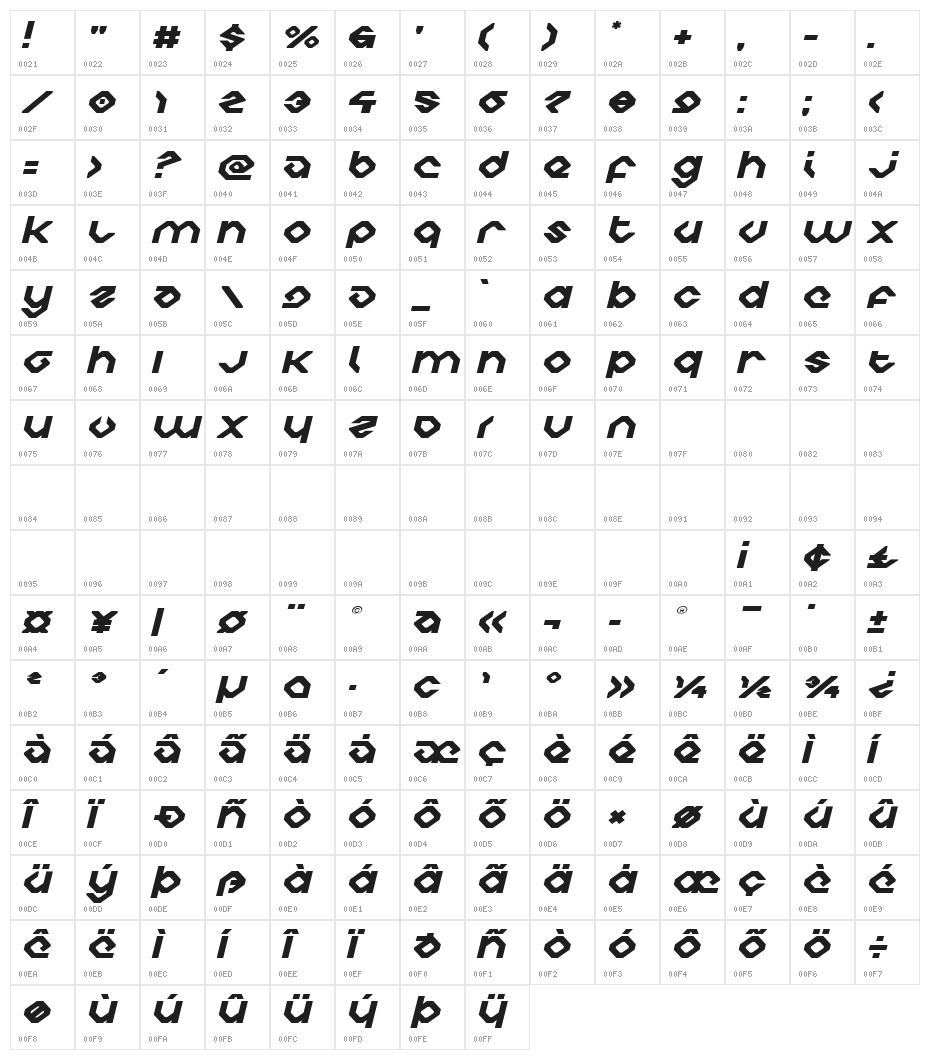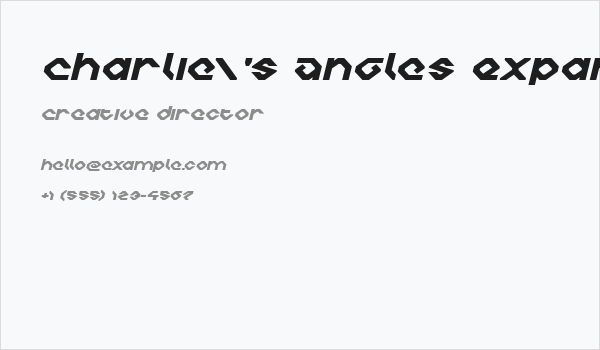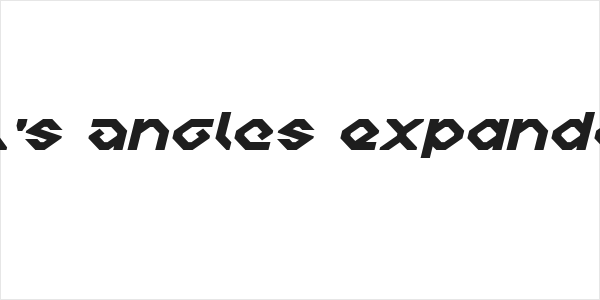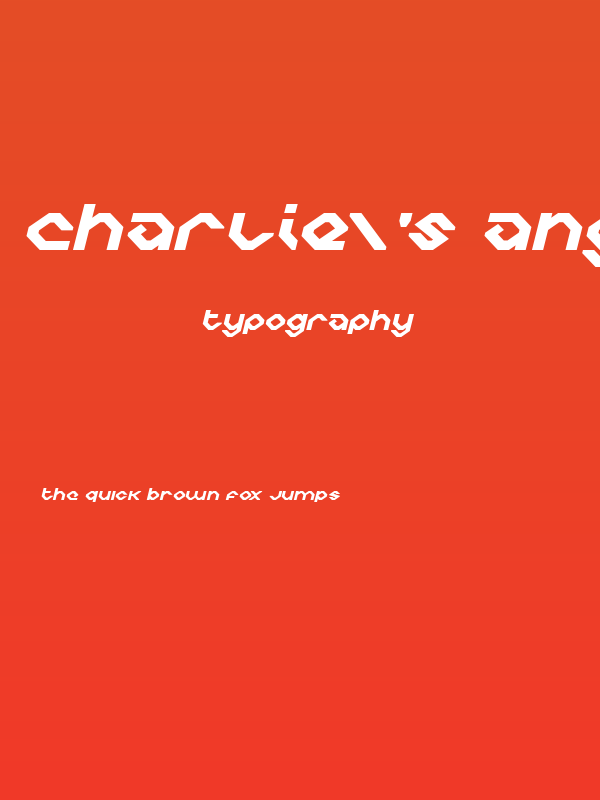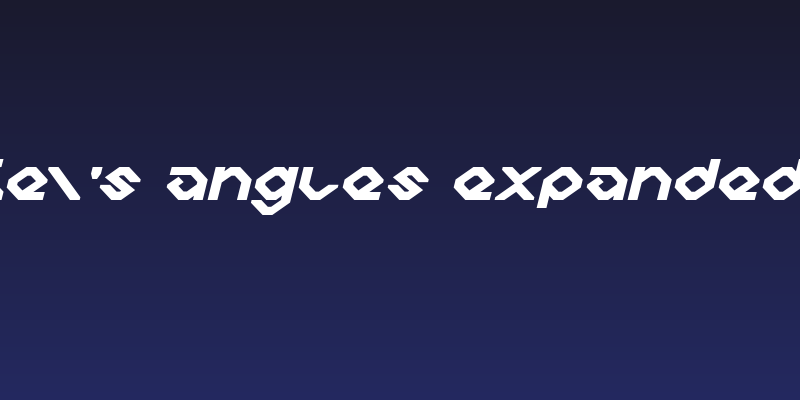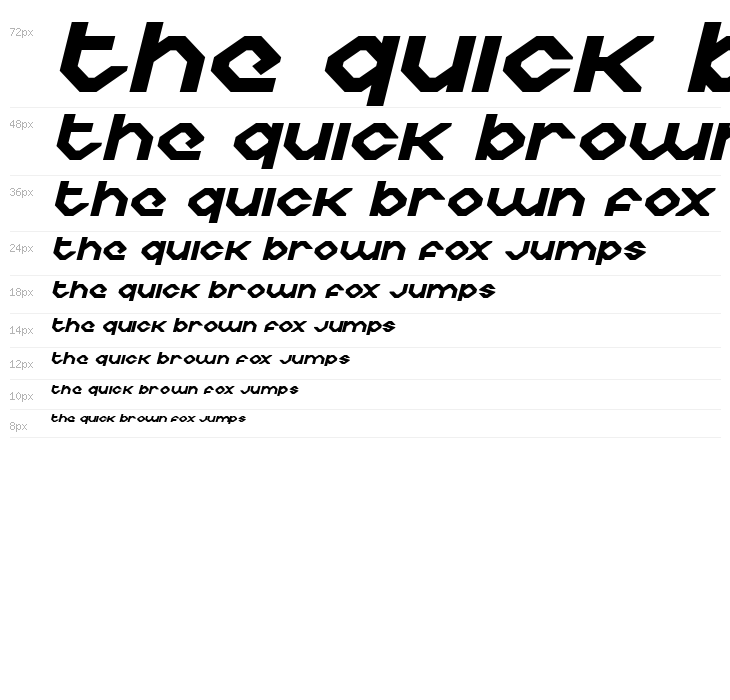
Charlie's Angles Expanded Italic Font
Charlie's Angles Expanded Italic Description
This font features a bold, angular design with a distinct italic slant, giving it a dynamic and futuristic appearance. The characters are constructed with sharp, geometric edges, creating a sense of movement and energy. The uppercase and lowercase letters maintain a consistent style, with the lowercase mirroring the uppercase in form but with a slightly reduced height. Numbers and special characters follow the same angular theme, ensuring uniformity across all glyphs. The expanded width of the characters adds to the boldness, making it stand out in any design. This font is ideal for projects that require a modern, edgy look.
Overall StyleFuturistic
Proposed ProjectsIdeal for sci-fi movie posters, video game titles, tech branding, and edgy graphic designs.